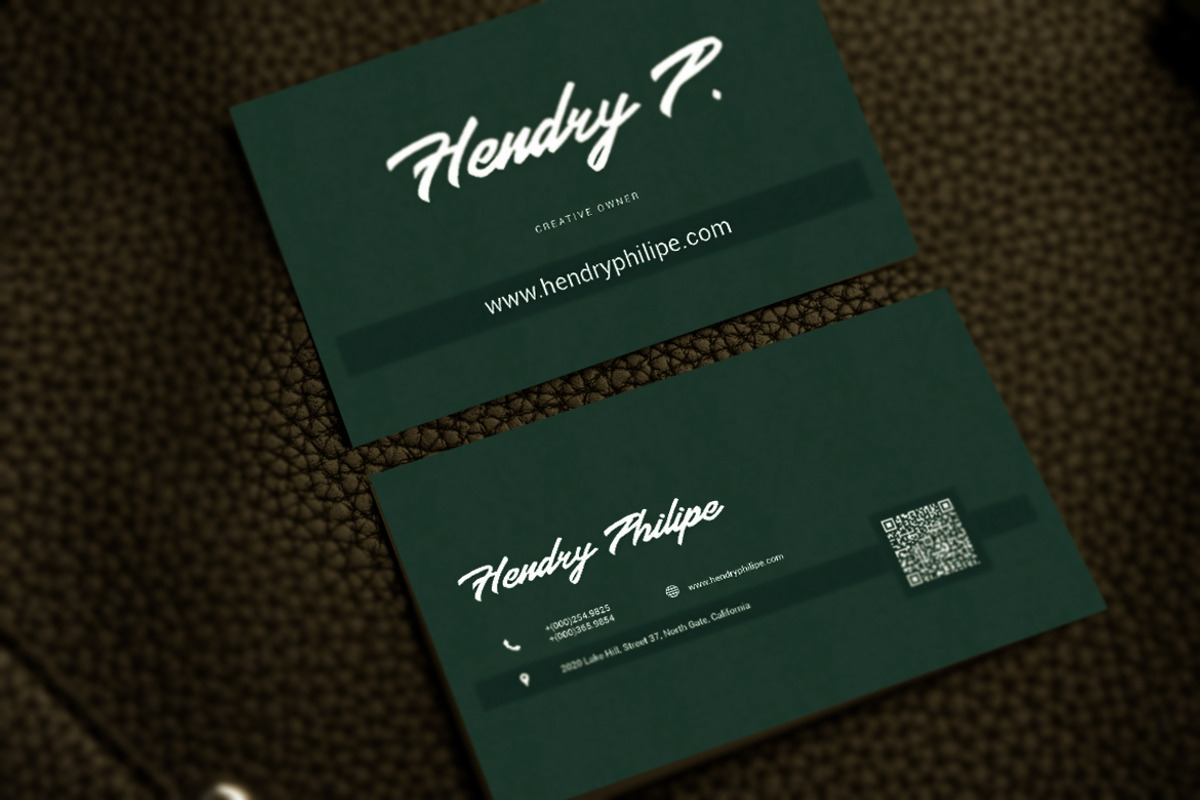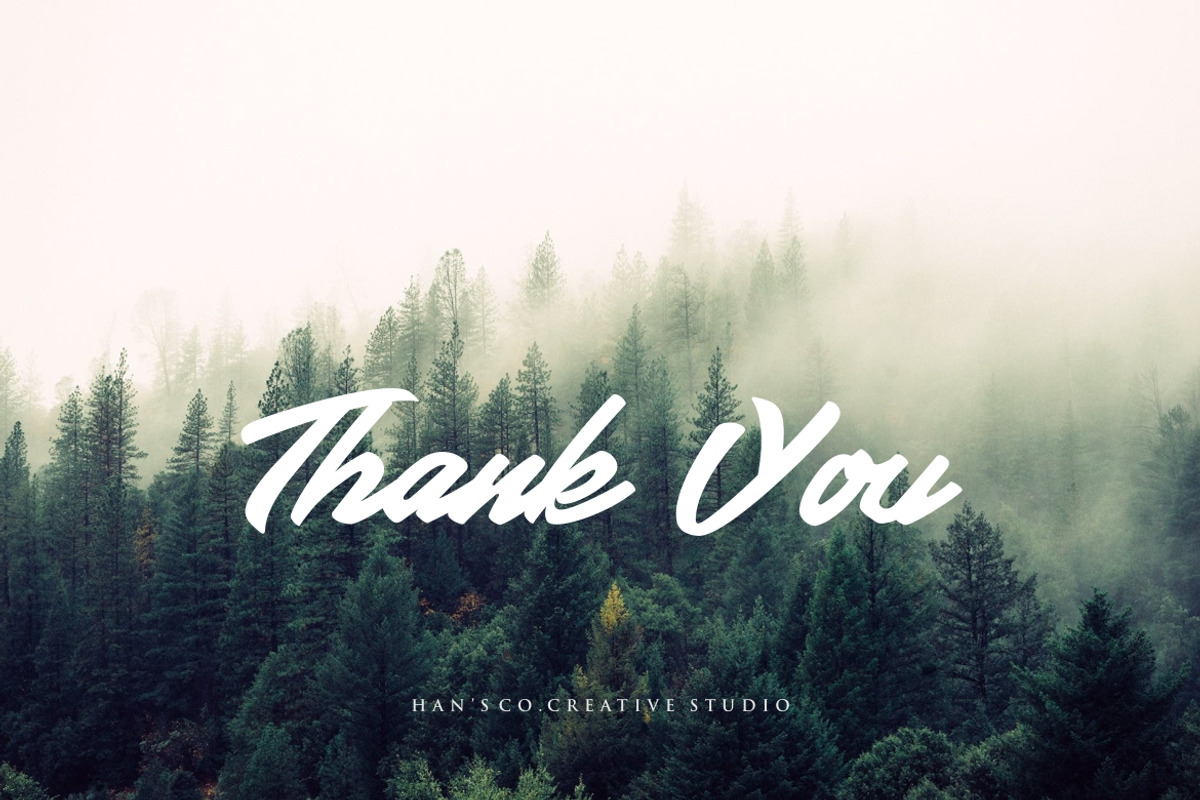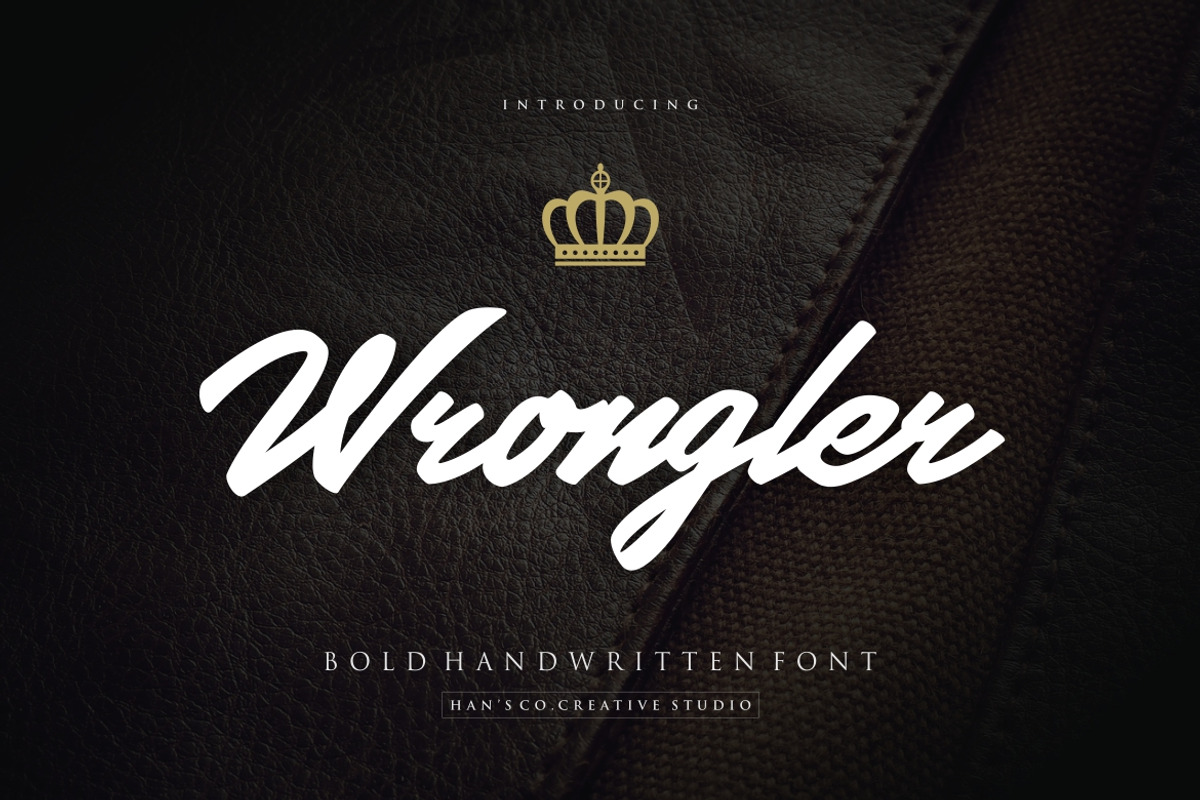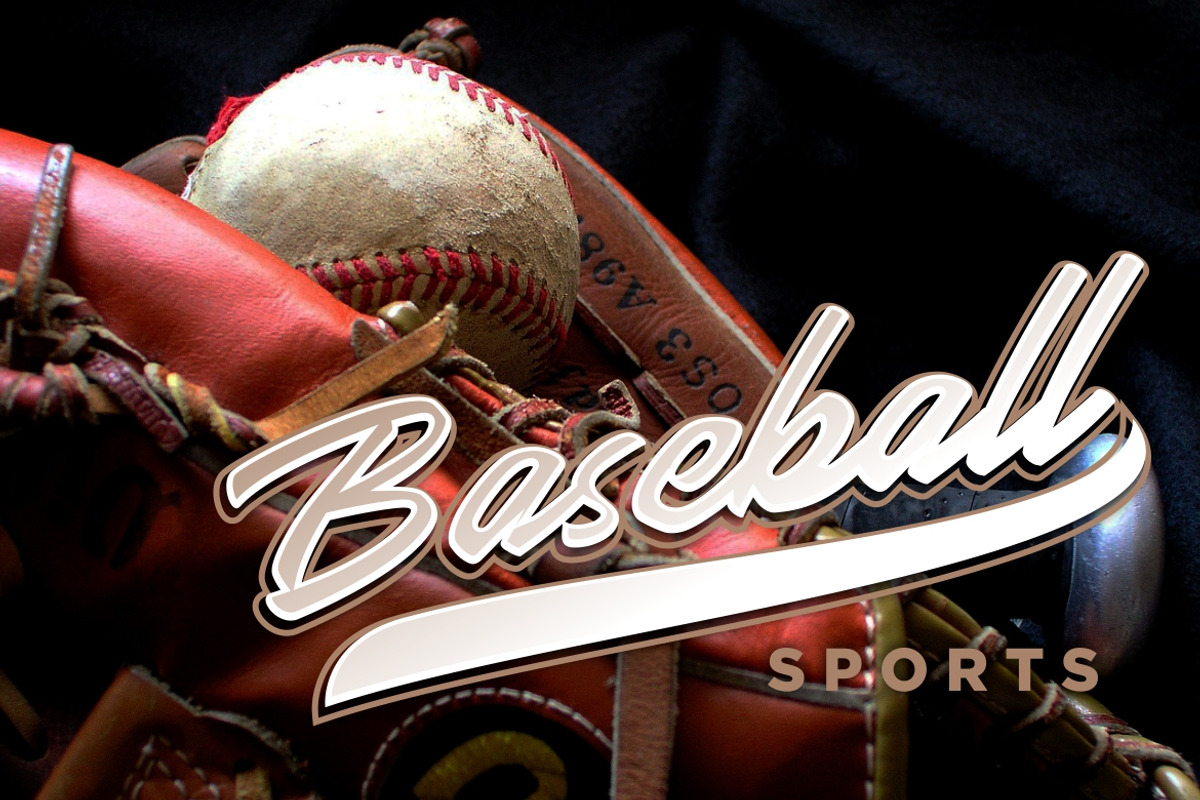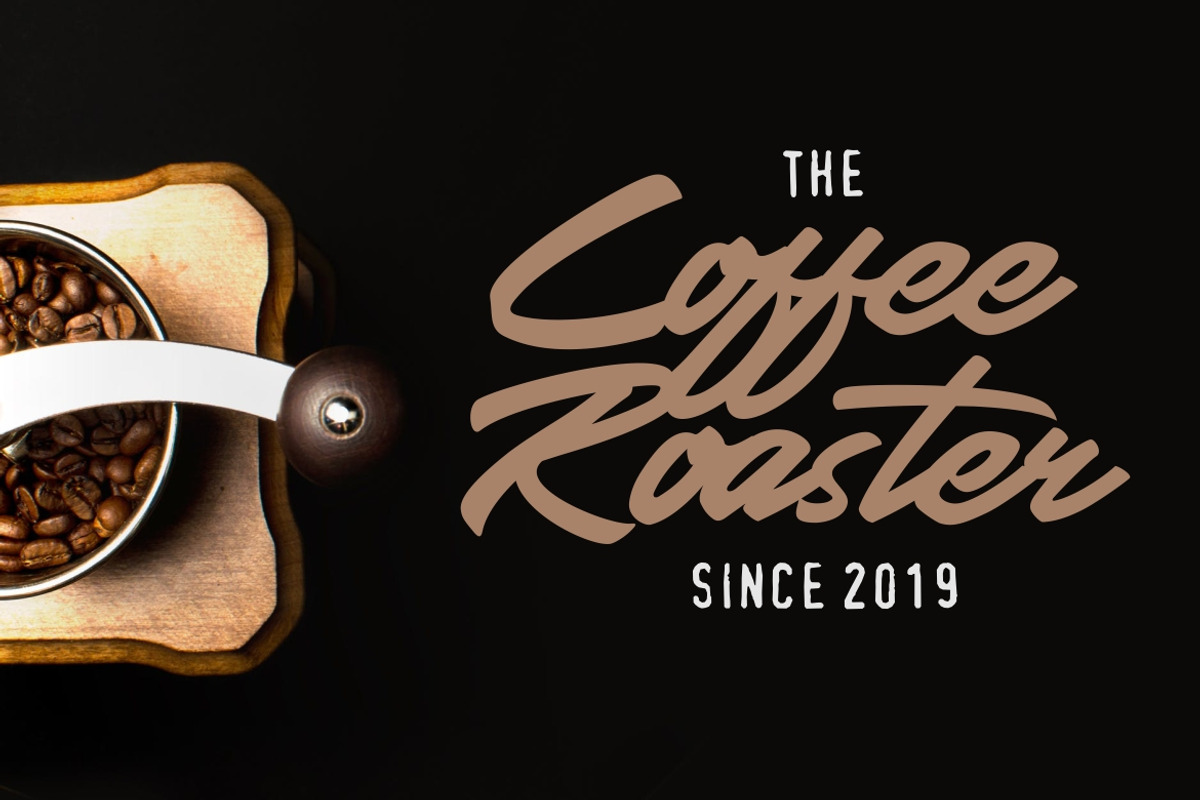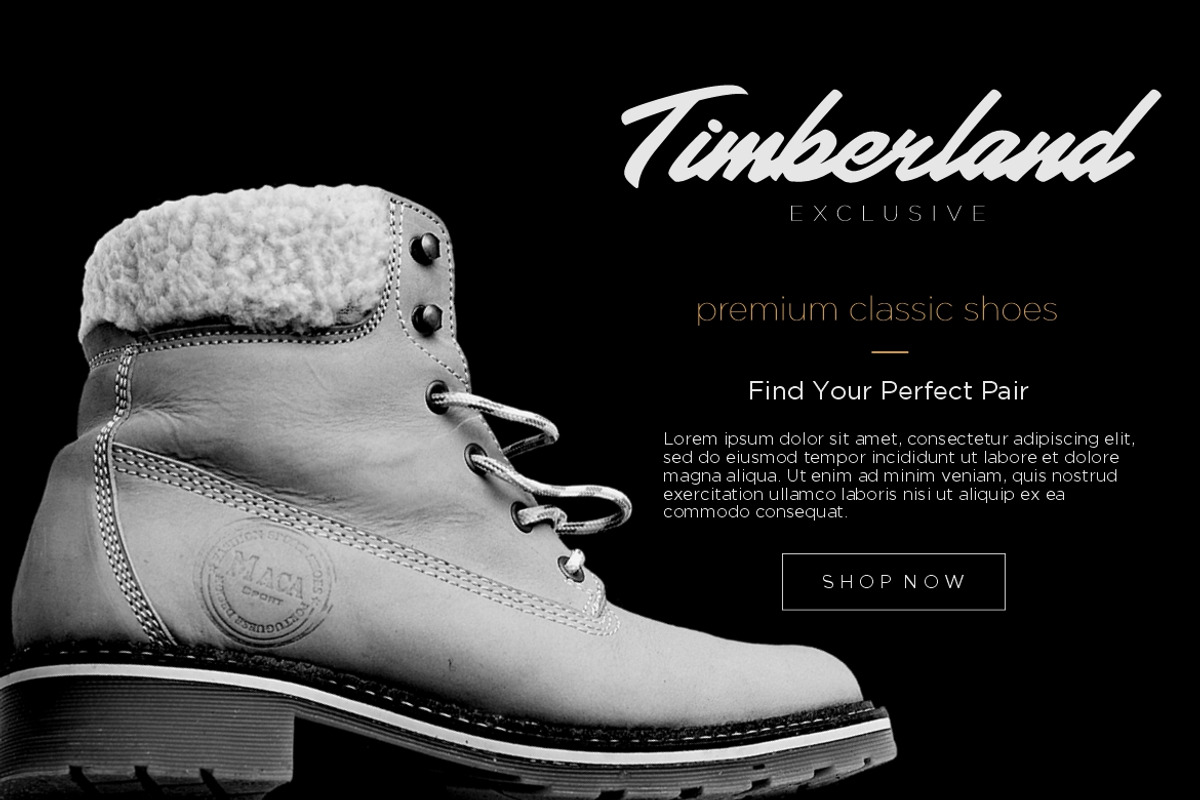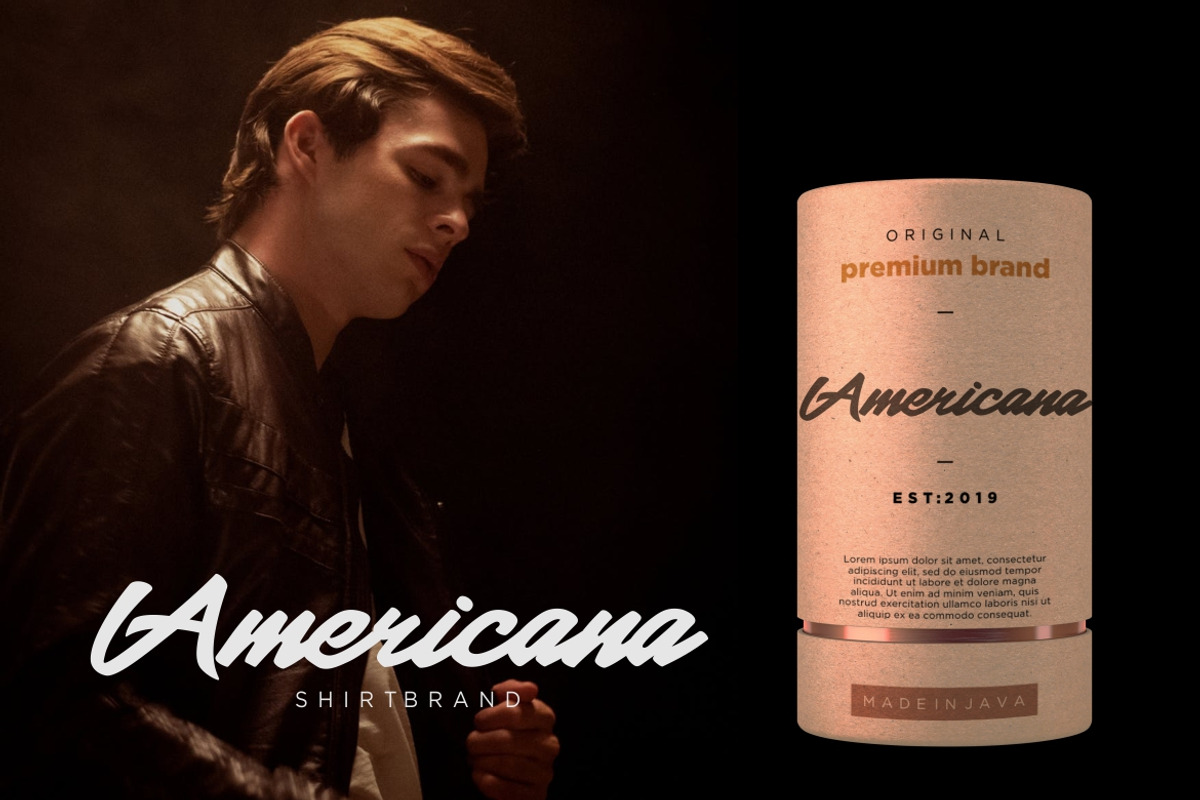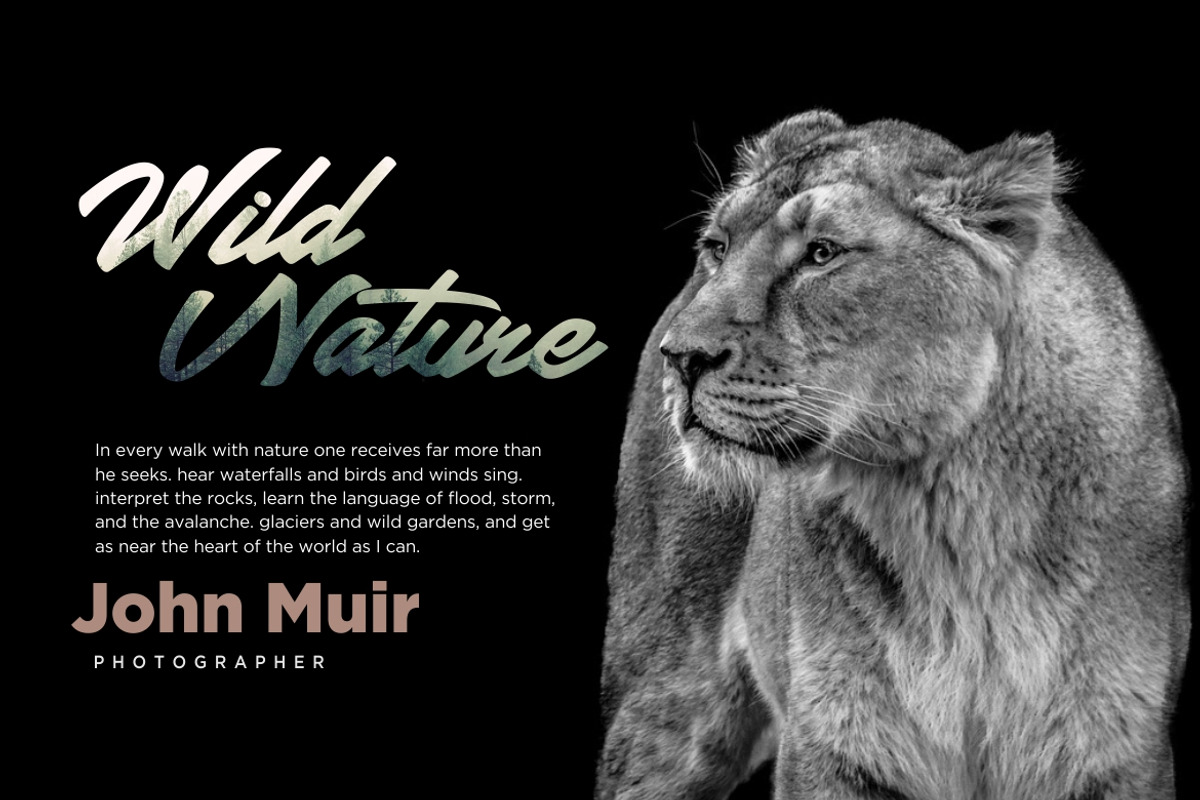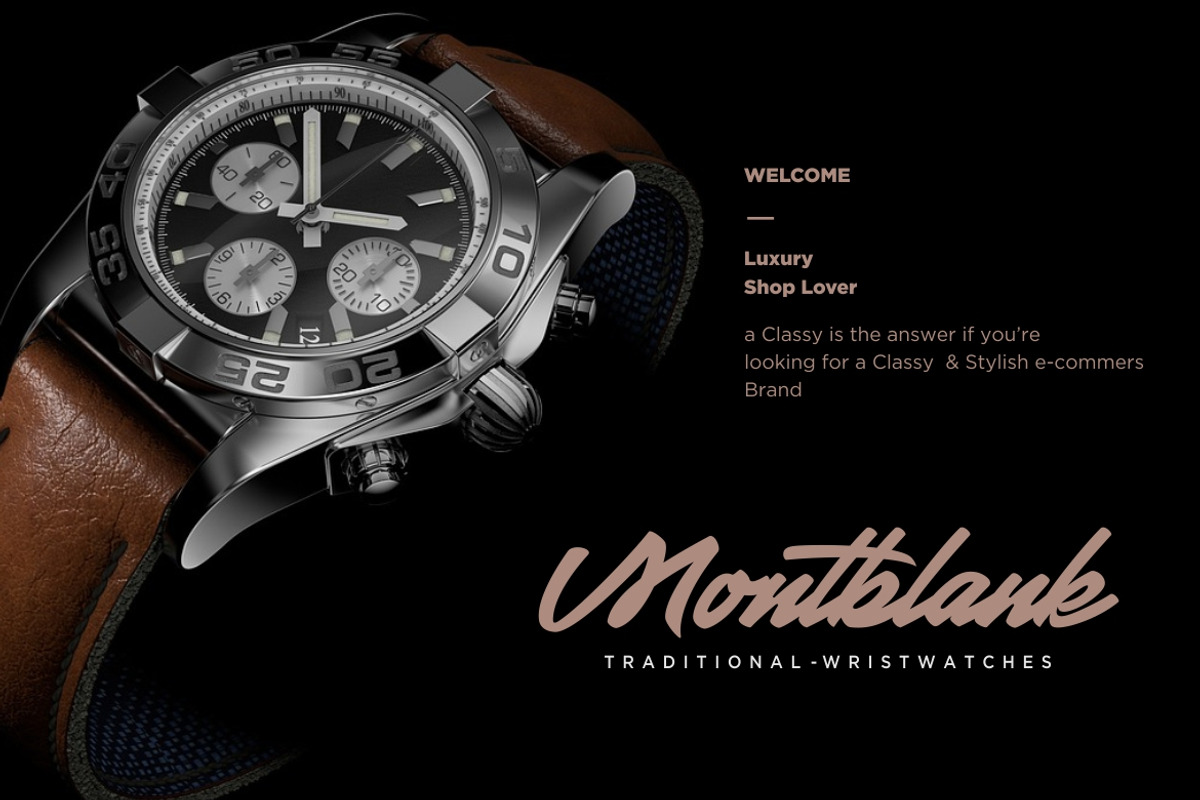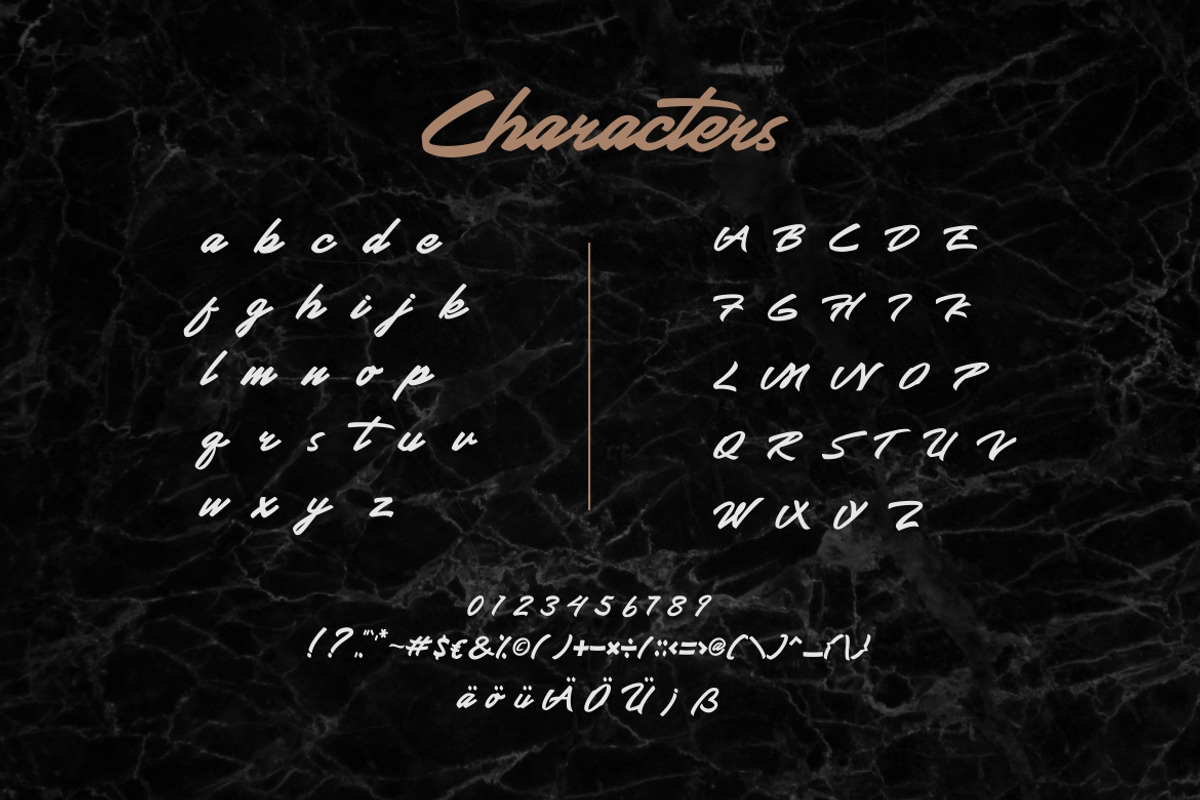
Wrongler Handwritten Font!
Wrongler Font is an Handwritten type designed with classic and highlevel feel. It perfectly represents classic yet modern in signature way.
This font will make perfectly for logo design, packaging or brand identity pack.